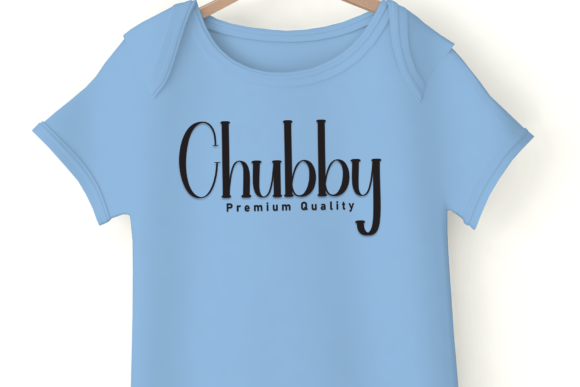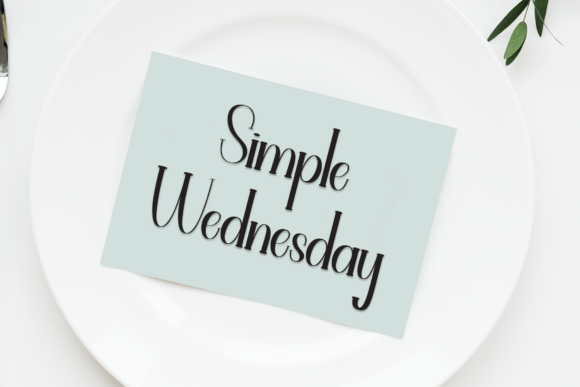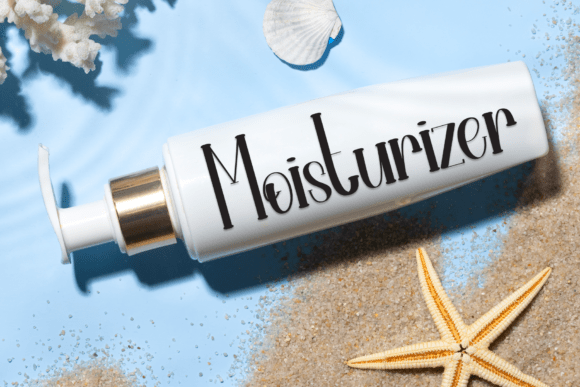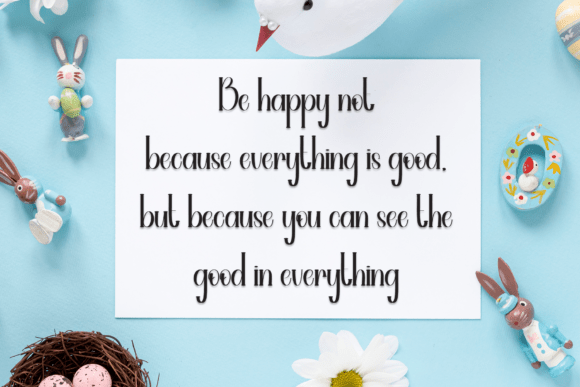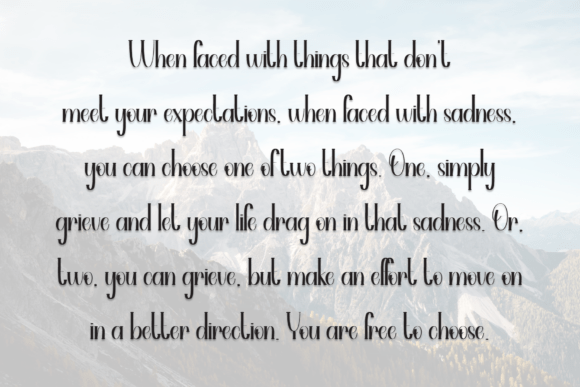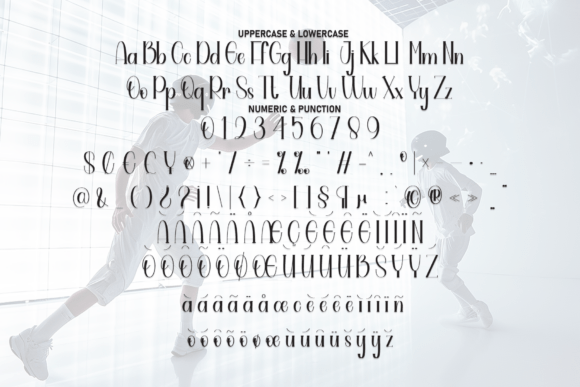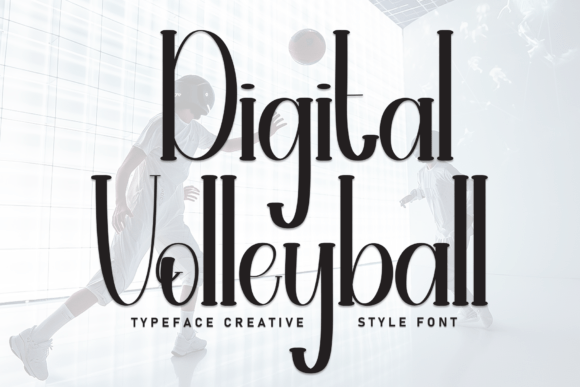
Introducing Digital Volleyball Font: The Ultimate Playful Display Font
Are you tired of using the same old fonts for your designs? Do you want to add a touch of playfulness and whimsy to your wedding invitations, greeting cards, or any other design project? Look no further than the Digital Volleyball Font, a delightful handwritten display font that radiates a warm, welcoming charm.
A Font that Brings Joy and Liveliness to Your Designs
Engulfed in a lighthearted sweetness, this captivating and amusing font is perfect for designers and crafters looking to add a playful spin to their creations. The Digital Volleyball Font infuses life and unmissable joy into your designs, whisking them from ordinary to outstanding. With its unique charm and liveliness, this adorable font is sure to make your designs irresistibly appealing.
Wedding invitations and greeting cards are special occasions that deserve a font that reflects the joy and excitement of the occasion. The Digital Volleyball Font is a perfect pick for these types of designs, adding a touch of playfulness and whimsy that will make your creations stand out. Whether you’re designing a wedding invitation, a birthday card, or a holiday greeting, this font is sure to bring a smile to the recipient’s face.
Key Features of the Digital Volleyball Font
- Handwritten display font: The Digital Volleyball Font is a handwritten display font that has a personal and friendly feel.
- Playful and whimsical: This font is perfect for designers and crafters who want to add a touch of playfulness and whimsy to their designs.
- Lighthearted sweetness: The font has a lighthearted sweetness that makes it perfect for wedding invitations, greeting cards, and other special occasions.
- Unique charm and liveliness: The Digital Volleyball Font has a unique charm and liveliness that sets it apart from other fonts.
Tips for Using the Digital Volleyball Font
Here are some tips for using the Digital Volleyball Font in your designs:
- Use it for headings and titles: The Digital Volleyball Font is perfect for headings and titles, adding a touch of playfulness and whimsy to your designs.
- Pair it with other fonts: This font pairs well with other fonts, such as serif and sans-serif fonts, to create a unique and visually appealing design.
- Experiment with colors and textures: The Digital Volleyball Font looks great in a variety of colors and textures, so don’t be afraid to experiment and find the perfect combination for your design.
Why Designers and Crafters Love the Digital Volleyball Font
Designers and crafters love the Digital Volleyball Font for many reasons, including:
- Its unique and playful style: This font has a unique and playful style that sets it apart from other fonts.
- Its versatility: The Digital Volleyball Font can be used for a variety of design projects, from wedding invitations to greeting cards and more.
- Its ability to add joy and liveliness to designs: This font has the ability to add joy and liveliness to designs, making it perfect for special occasions and celebrations.
In conclusion, the Digital Volleyball Font is a delightful handwritten display font that radiates a warm, welcoming charm. With its playful and whimsical style, lighthearted sweetness, and unique charm and liveliness, this font is perfect for designers and crafters looking to add a touch of playfulness to their designs. Whether you’re designing a wedding invitation, a greeting card, or any other design project, the Digital Volleyball Font is sure to make your creations irresistibly appealing.